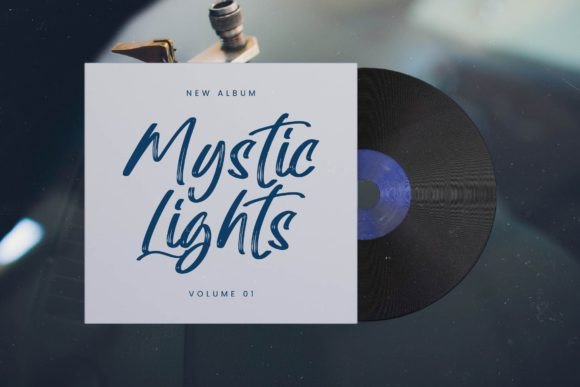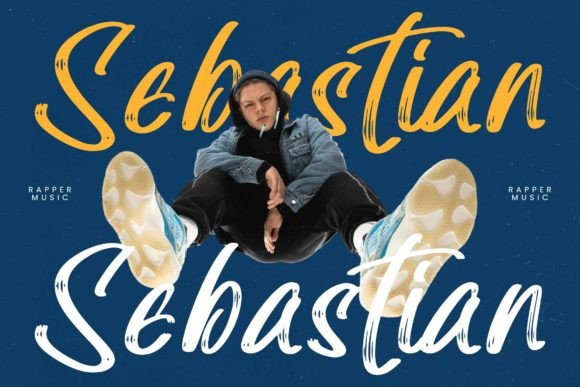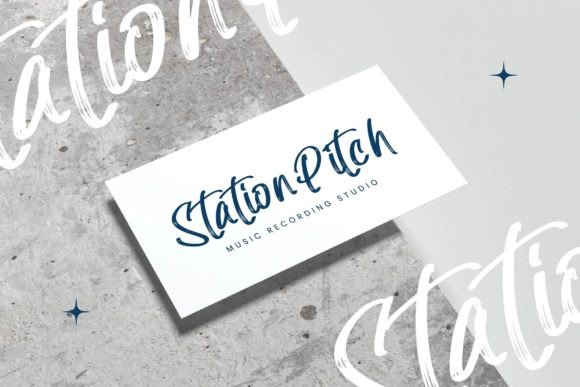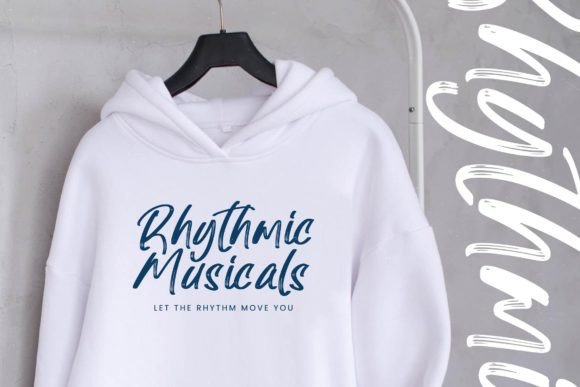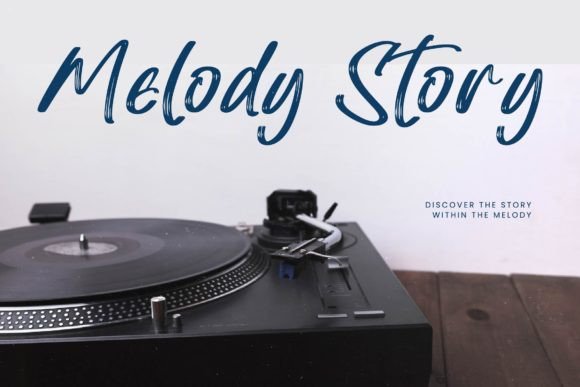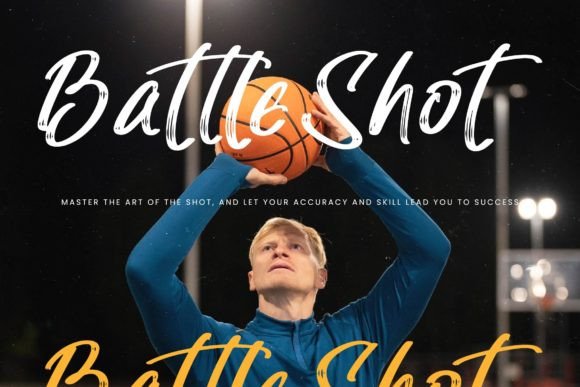
Introduction to Magical Electro Font
Magical Electro – Modern Handbrush Font , from Letterena, is a Luxury Script font, suitable for any projects such as: logos, branding projects, homeware designs, product packaging, mugs, quotes, posters, shopping bags, t-shirts, book covers, name card, invitation cards, greeting cards, label, photography, watermark, special events, and all your other luxury and beautiful projects that need a Luxury Script taste.
Magical Electro – Modern Handbrush Font , from Letterena, is a Luxury Script font, suitable for any projects such as: logos, branding projects, homeware designs, product packaging, mugs, quotes, poste